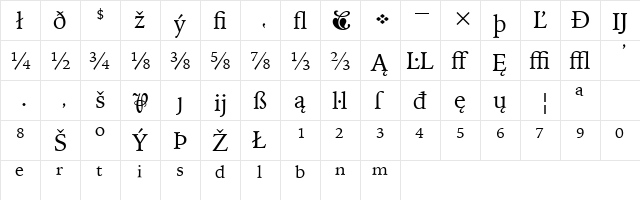
IowanOldSt Ext BT Extension
Design Context for IowanOldSt Ext BT Typeface
IowanOldSt Ext BT offers clean, dependable letterforms without strong stylistic allegiance, making it a practical choice for designers who need flexibility.
Pro Tip: Use IowanOldSt Ext BT in both headline and body roles to test its range before committing to a single application.